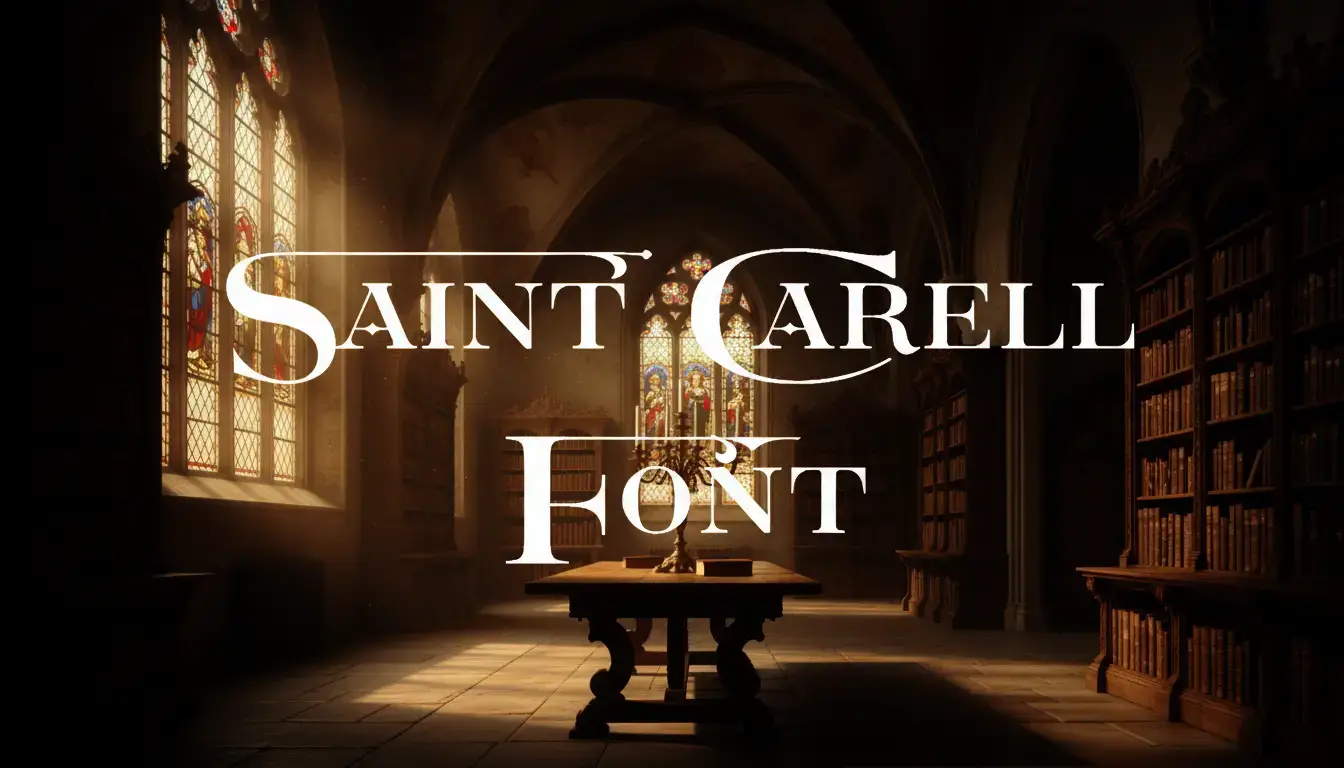
Saint Carell Font
Saint Carell Font Preview
Saint Carell
Saint Carell Character Map
Saint Carell is a fancy font created by Mans Greback and released through Mans Greback AB. Bold and full of character, it's built to stand out rather than blend in. You can download it for free and test it with your own words in the preview above.
What You Can Type With Saint Carell
Saint Carell covers the full alphabet in upper and lowercase, plus all ten numbers, so you can set names, dates and prices without switching fonts. Common punctuation such as &, !, ? and @ is included as well. It also has the accented letters you need for Spanish, French, German, Portuguese and Italian.
Where Saint Carell Works Best
Designers usually reach for fonts like Saint Carell when they're making posters, logos and eye-catching headlines. Use it for one standout word or headline and let simpler fonts handle the rest.
Does Saint Carell support accented letters?
Yes. Saint Carell includes the accented letters needed for Spanish, French, German, Portuguese and Italian, so it works for more than just English.